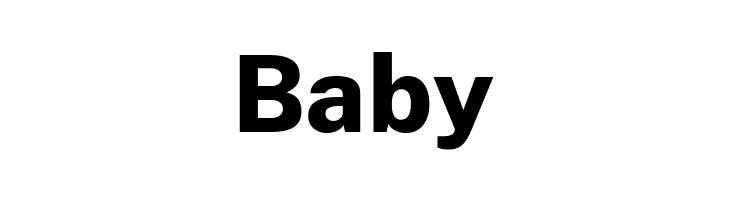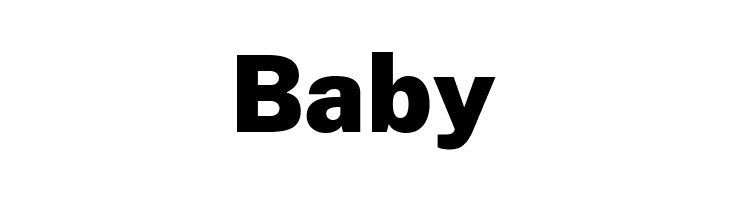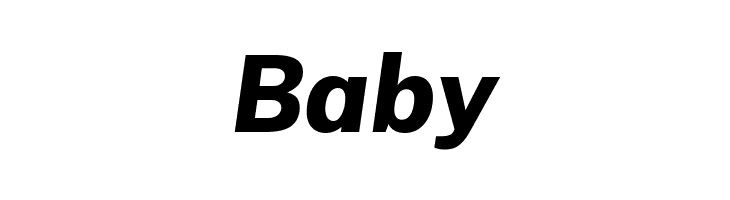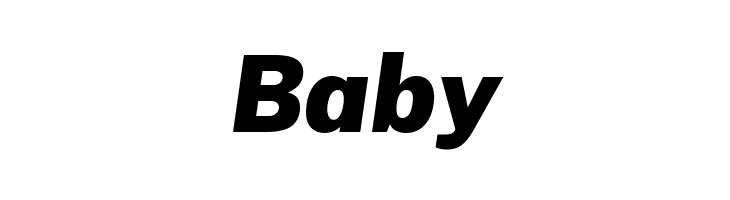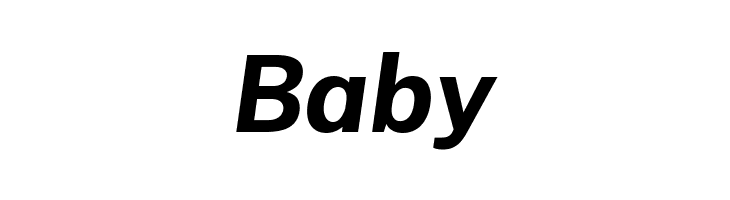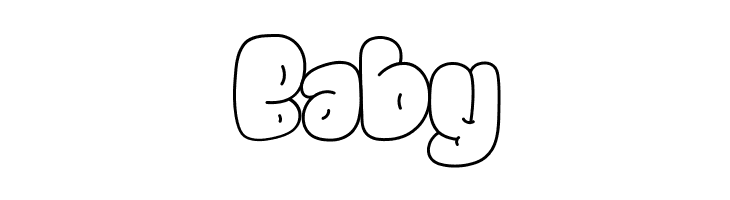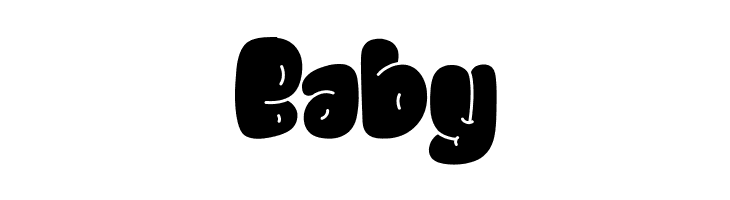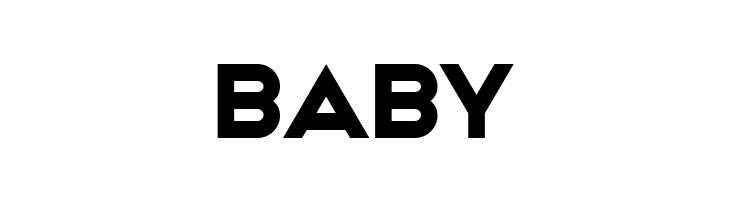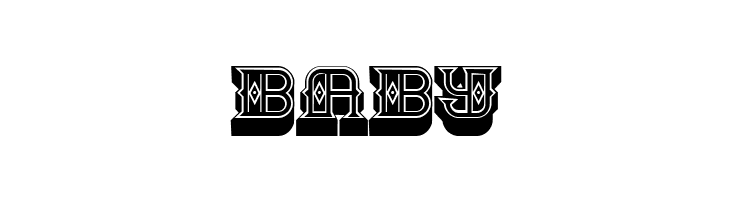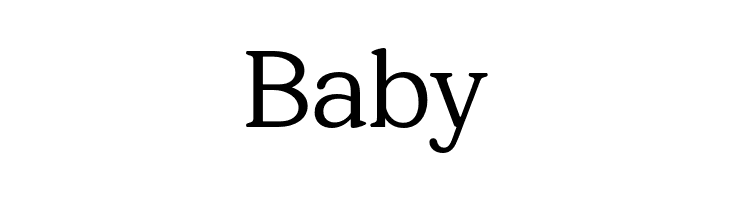
A chess-themed icon font with bold, geometric piece designs.
A modern, bold set of chess-inspired symbols with clean lines and geometric shapes.
A playful, casual script font with smooth, flowing lines and a handwritten appearance.
A dynamic brush script font with fluid, hand-painted strokes.
A sophisticated script font with elegant, flowing cursive strokes.
A graceful and elegant script font with flowing cursive letterforms.
A sketchy, hand-drawn font with textured, overlapping strokes.
A bold, decorative font with intricate patterns and a 3D shadow effect.
A bold, geometric font with a futuristic and modern design.
A bold, geometric font with a futuristic and decorative style.
A bold, abstract font with dynamic, italicized characters and geometric cutouts.
A bold, geometric font with circular and abstract shapes, ideal for modern designs.
A geometric, abstract font with bold circular forms and unique cut-out shapes.
A playful handwritten font with a casual, pen-like style.
A playful, handwritten-style italic font with smooth, medium-thick strokes.
A bold, geometric sans-serif font with strong, angular lines and a modern aesthetic.
A bold serif typeface with a classic and authoritative style.
A bold, serif typeface with strong strokes and commanding presence.
A clean and elegant serif font with thin, graceful strokes.
A modern serif font with elegant and refined letterforms.
A classic serif font with modern elegance and medium contrast.
A classic serif font with semi-bold weight and moderate contrast, ideal for elegant and readable text.
A thin, modern font with elegant strokes and excellent readability.
A playful, casual handwritten font with rounded, consistent strokes.
A playful, hand-drawn font with rounded edges and candy-themed glyphs.
A bold, playful font with rounded, bubble-like characters and minimal contrast.
A playful, bold font with thick, rounded, outlined characters.
A playful, bold font with rounded, bubble-like characters enclosed in shapes.
A bold, modern sans-serif typeface with thick, uniform strokes.
A bold, italicized sans-serif font with high contrast and modern appeal.
A bold, modern sans-serif typeface with clean lines and uniform weight.
Bold, italic sans-serif font with a modern and dynamic style.
A bold, modern sans-serif typeface with strong, uniform strokes.
A bold, italic sans-serif font with a modern and dynamic style.